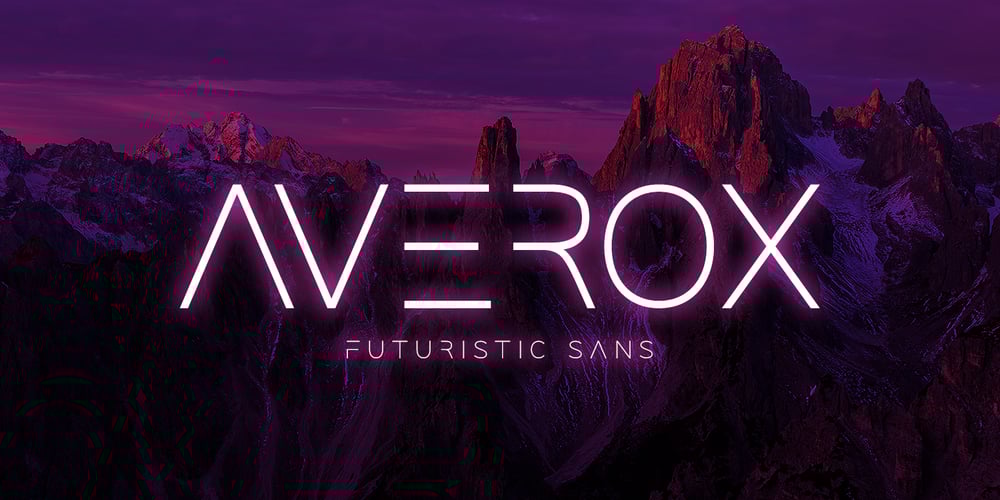
Averox Font Family was designed by Abdul Malik Wisnu and published by Almarkha Type. Averox contains 1 styles and family package options. Introducing Averox is a Futuristic Sans font with a stylish touch inspired by the famous minimalist logo and averox is perfect for the purposes of designing templates, brochures, videos, advertising branding, logos and more.